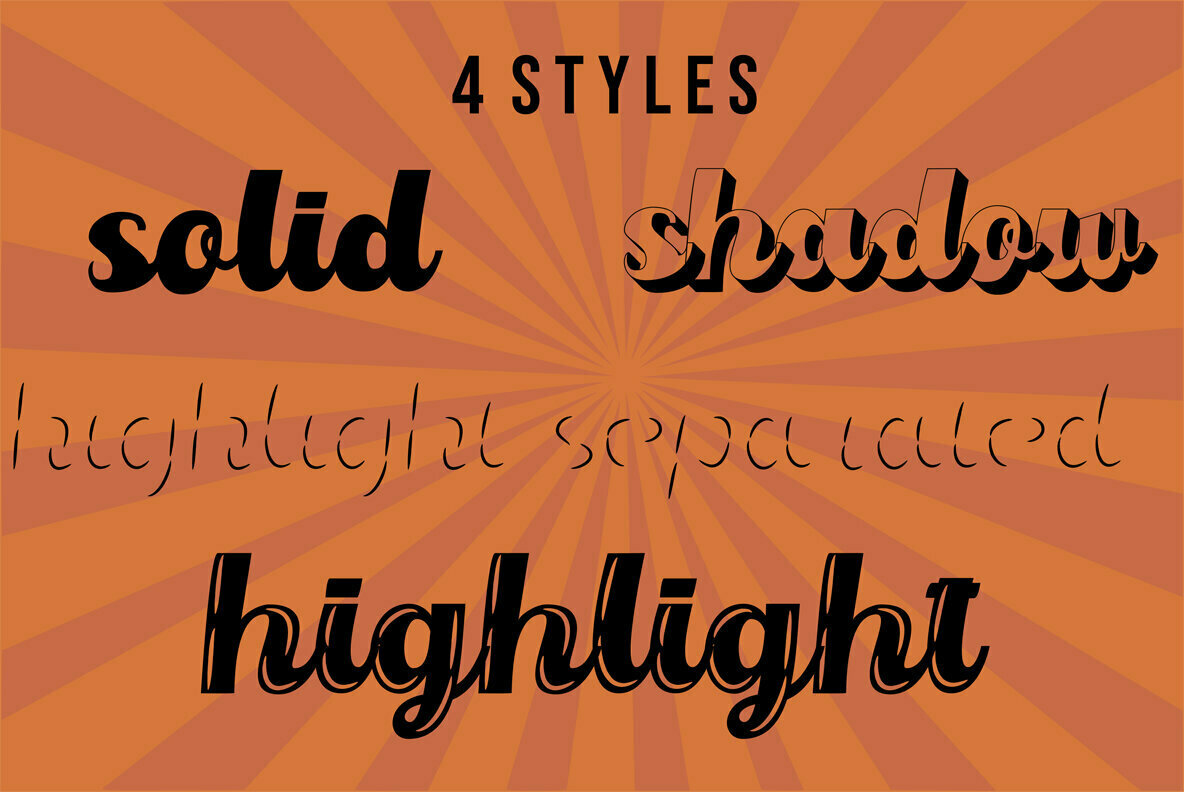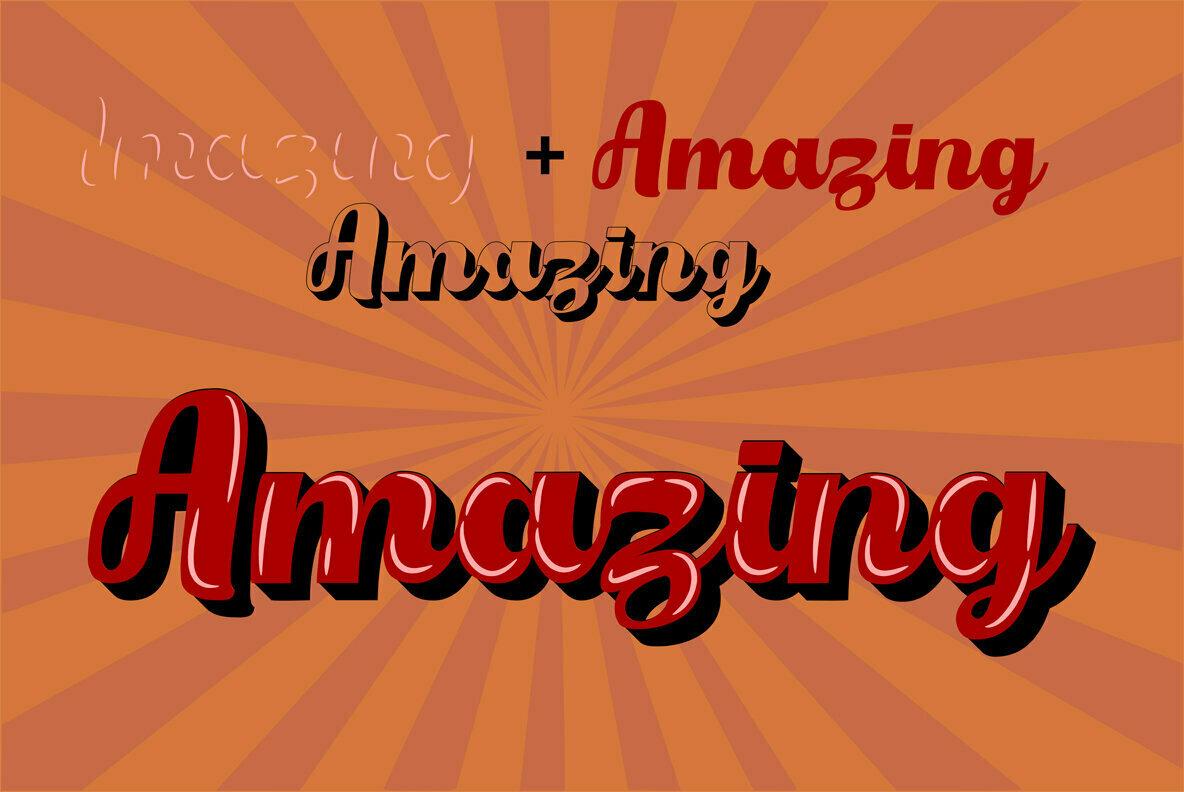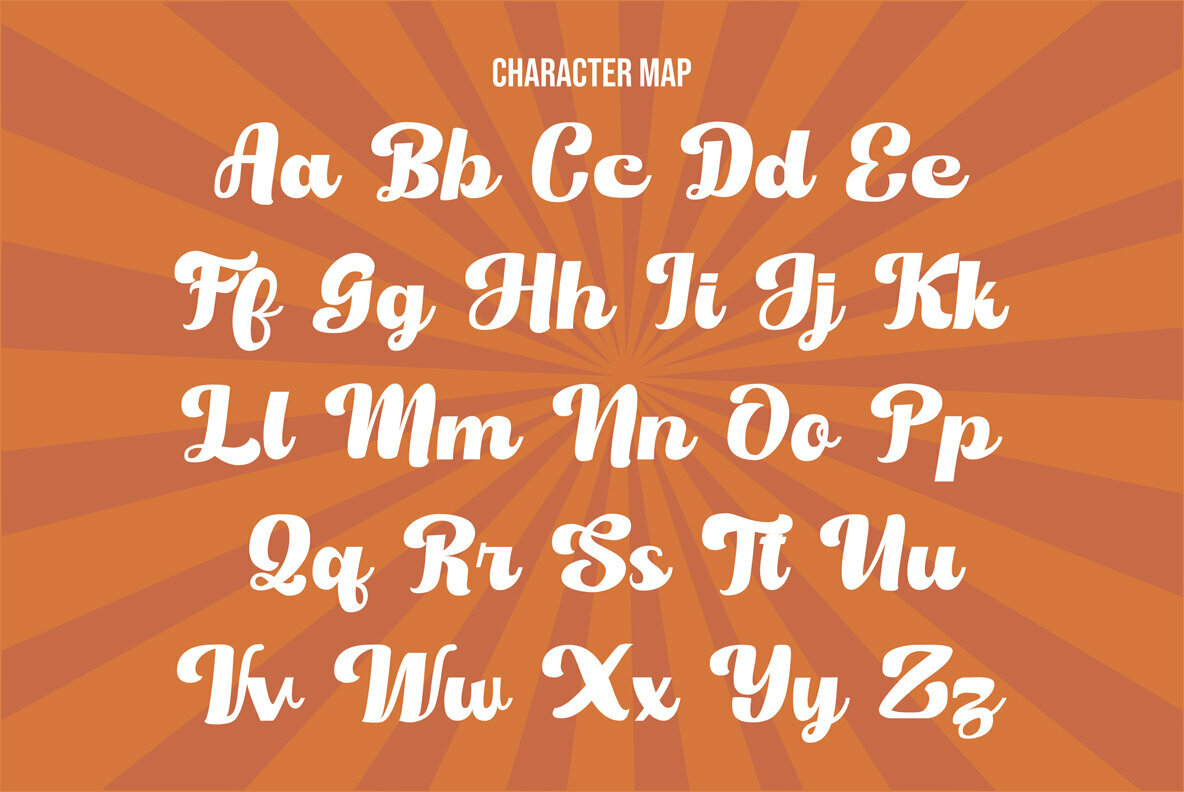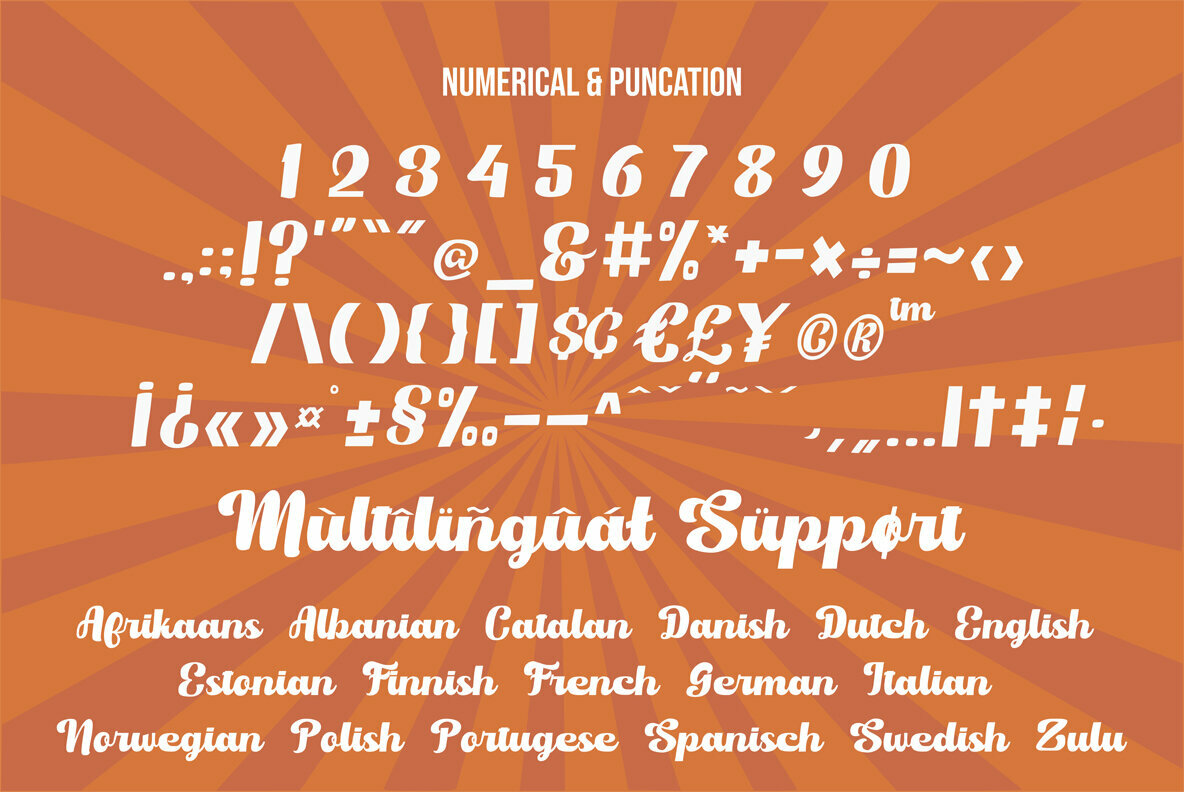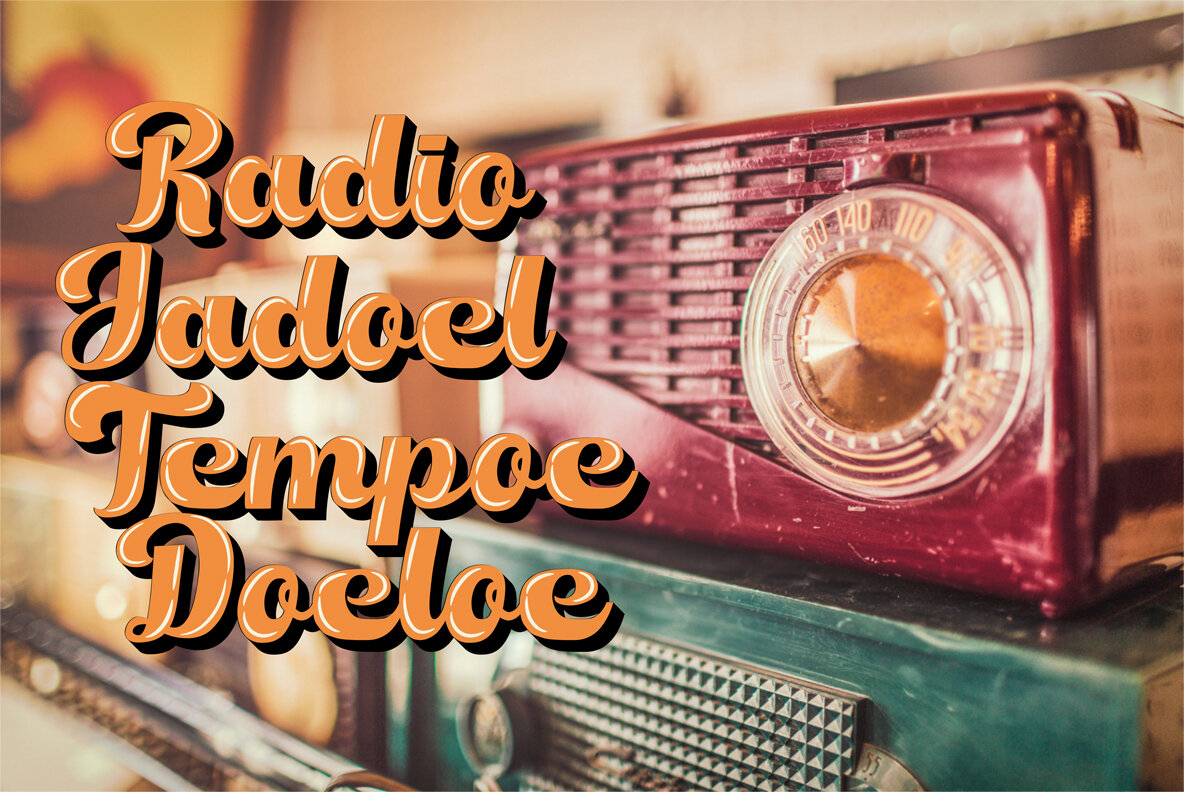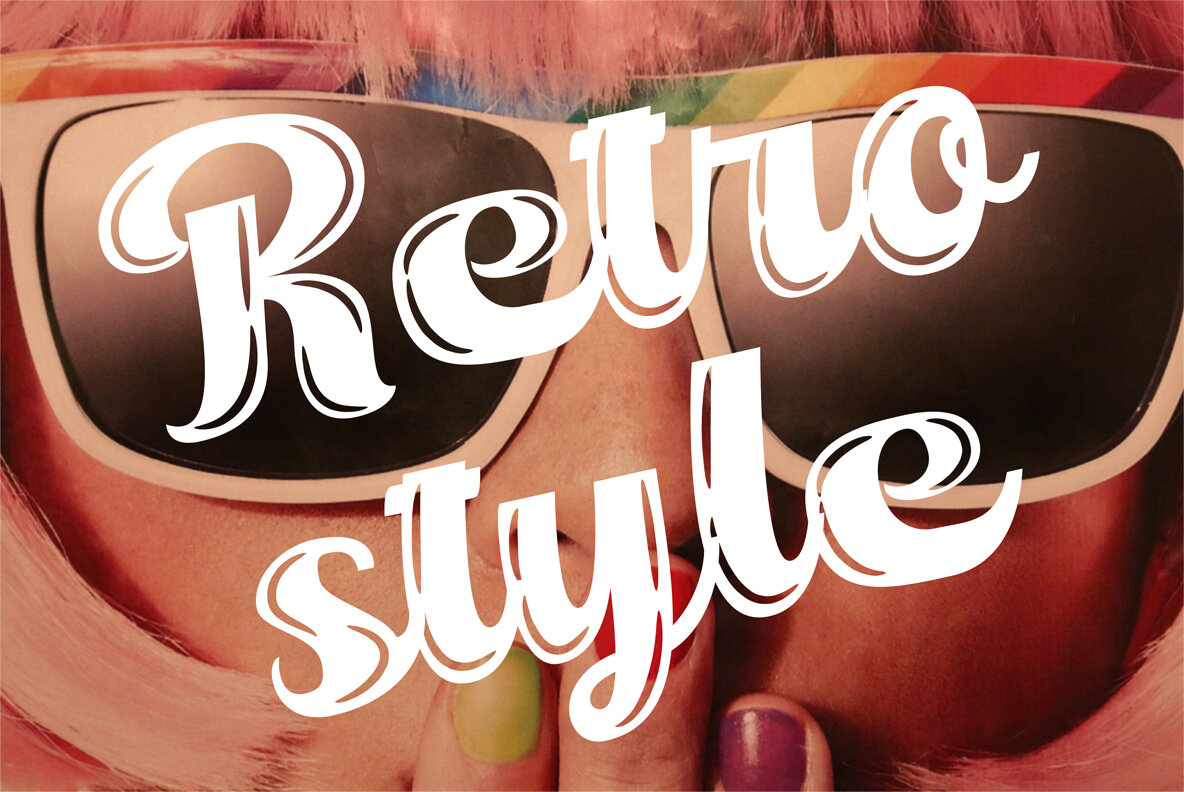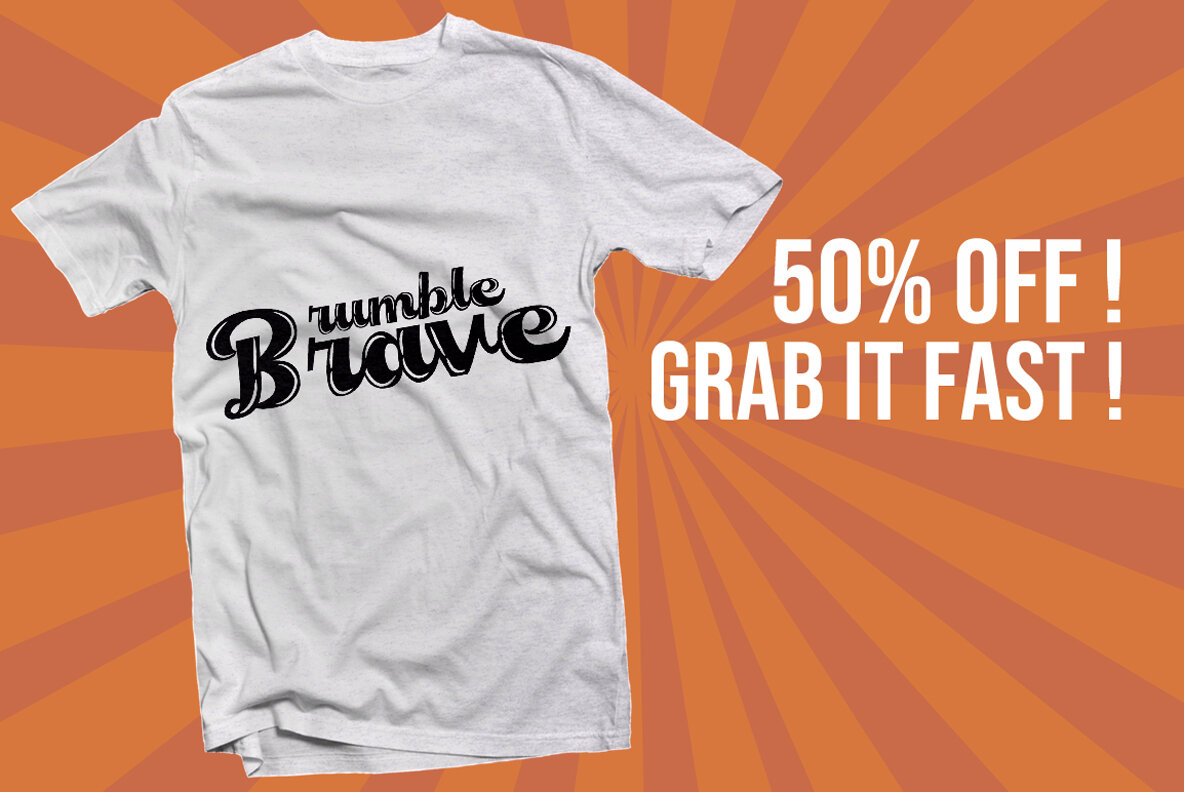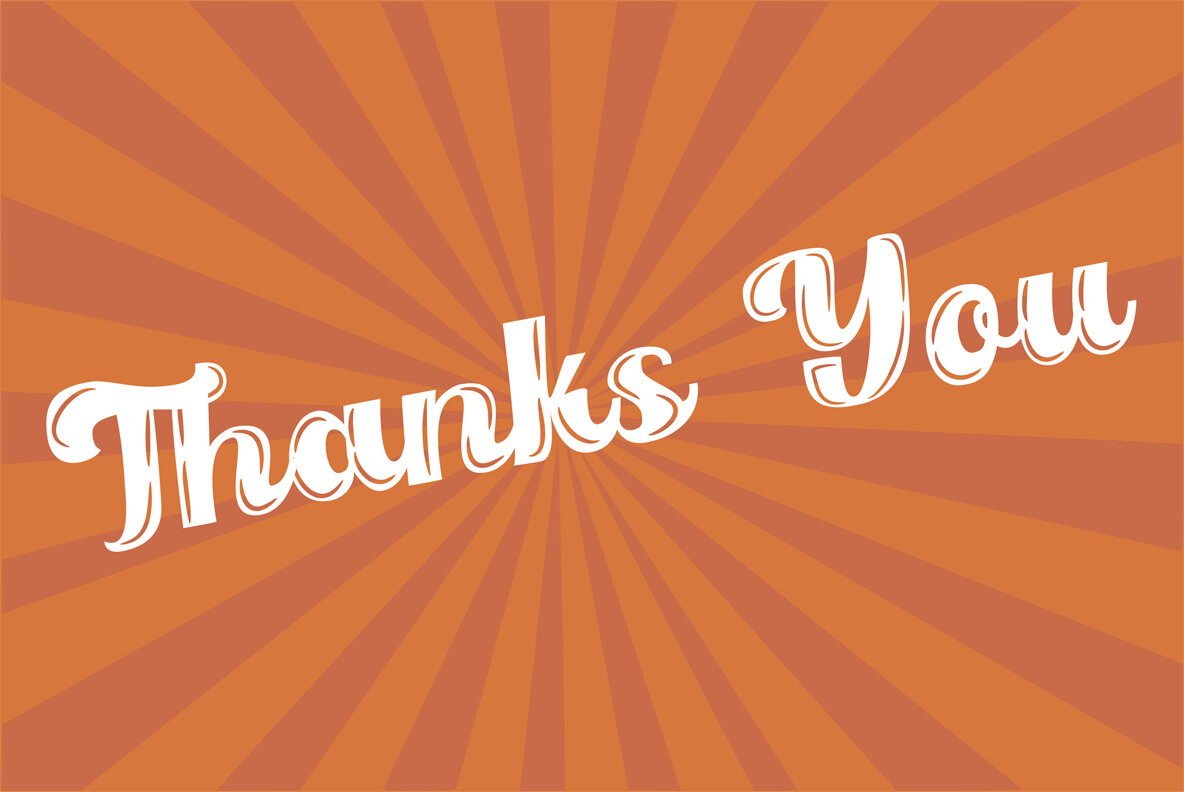
Orectic Script Font
Orectic Script offers a unique blend of boldness and creativity, perfect for adding a distinguished touch to your designs. With its layered system, effortlessly add shadow and highlight effects to your work, streamlining your creative process and saving time. Its adaptability makes it a top choice for numerous applications.Orectic Script: Bold Hand Lettering Font